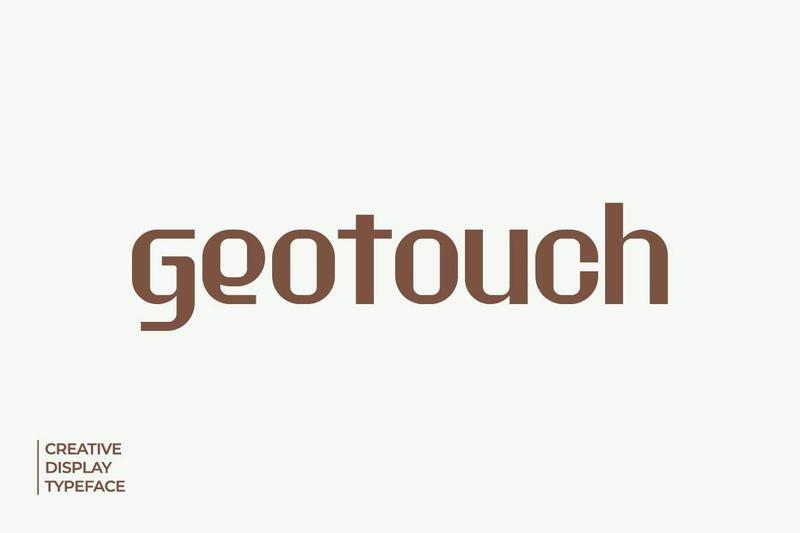
**Geotouch Creative Display Typeface**
This font is perfect for posters, social media posts, branding, personal projects, etc.
* Punctuation
* Multilingual Support
* Alternates